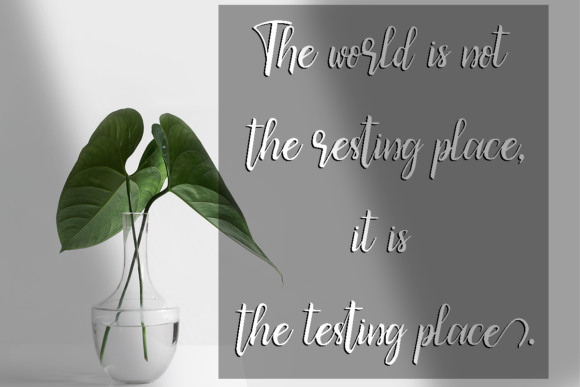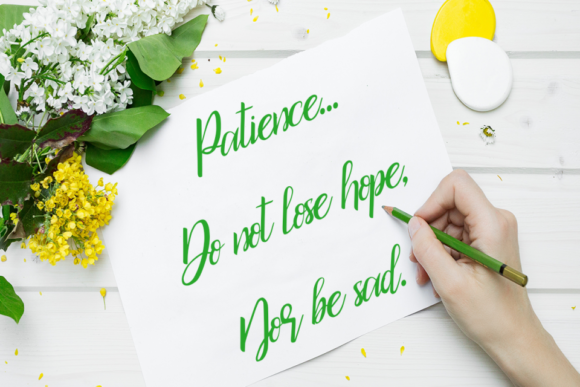
The Font that Stole My Heart: A Deep Dive into Bicillesta
I still remember the design project that led me to discover Bicillesta. I was working on a wedding invitation suite, and my client had a very specific vision: elegant, modern, and with a touch of whimsy. As I scrolled through font after font, nothing seemed quite right. That was until I stumbled upon Bicillesta. Its unique charm and effortless flow instantly won me over. In this article, I’ll share my love for this beautiful script font, its features, and how to make the most of it in your designs.
An Honest Review of Bicillesta
What I Love About Bicillesta
• ✨ Elegant and Authentic: Bicillesta strikes the perfect balance between elegance and authenticity. It’s sophisticated without being too formal.
• ✅ Unique Charm: The font has a distinct personality that sets it apart from more traditional script fonts.
• 💫 Versatile: Whether you’re working on a wedding invitation, a branding project, or a craft, Bicillesta adapts beautifully to different contexts.
While Bicillesta is a stunning font, there are a few things to keep in mind:
• ⚠️ Legibility at Small Sizes: Like many script fonts, Bicillesta can be a bit tricky to read at very small sizes. It’s best used at larger sizes where its beauty can shine.
• 🤔 Pairing with Other Fonts: Due to its strong personality, Bicillesta can be a bit challenging to pair with other fonts. You’ll want to choose complementary fonts that don’t compete with its elegance.
The Story Behind Bicillesta
Bicillesta was designed with the intention of creating a font that feels both modern and timeless. Inspired by the flowing scripts of the past, the designer aimed to craft a font that could be used in a variety of creative projects, from weddings to branding. The result is a font that feels elegant, yet approachable.
Q: Is Bicillesta suitable for body text?
A: While Bicillesta is beautiful, it’s primarily designed for display text. For body text, consider a more straightforward font for better readability.